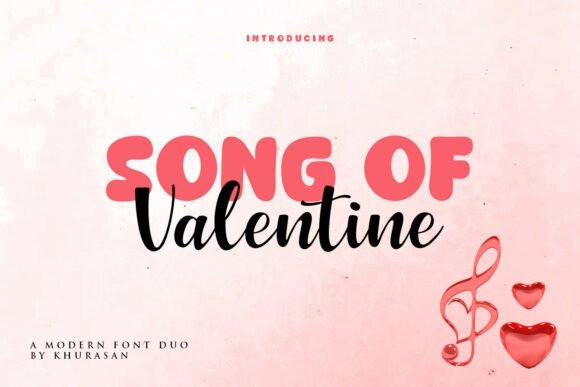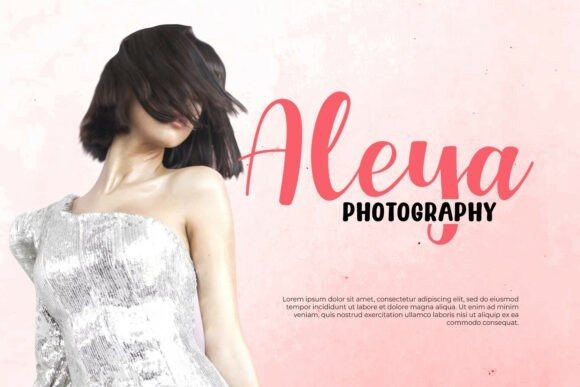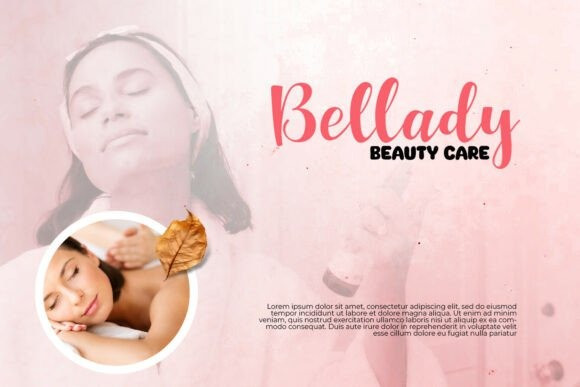
Song Of Valentine Font Duo
Song Of Valentine Font Duo — a romantic font duo designed to capture hearts and tell love stories through letters.Song of Valentine combines a graceful script that flows like handwritten love notes with a clean, modern sans serif that brings balance and clarity.
Together, they create the perfect harmony between emotion and elegance, making every design feel warm, intimate, and unforgettable.
Whether you’re creating wedding invitations, Valentine cards, romantic branding, social media quotes, or love-themed packaging, Song of Valentine adds a touch of passion and charm that instantly connects with the viewer’s heart.